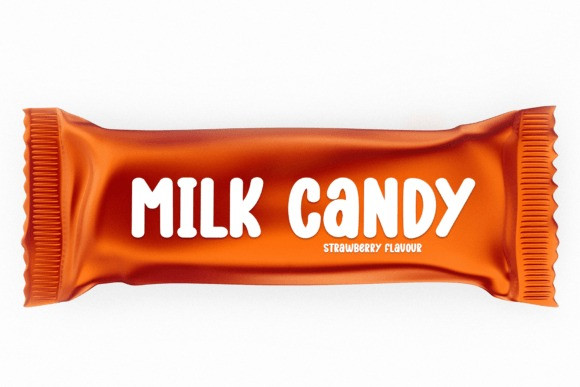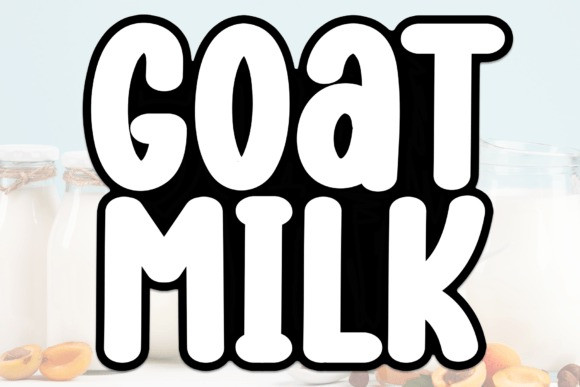
Goat Milk Font
Goat Milk Font is a sweet and friendly handwritten font. Its natural and unique style makes it incredibly fitting to a large pool of designs. The only limit is your imagination!